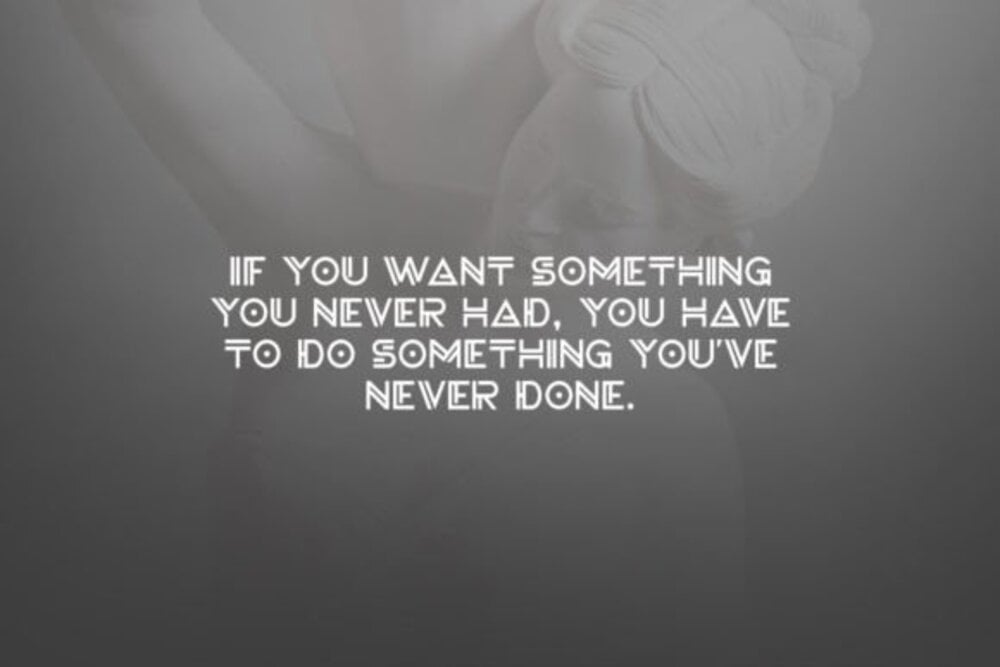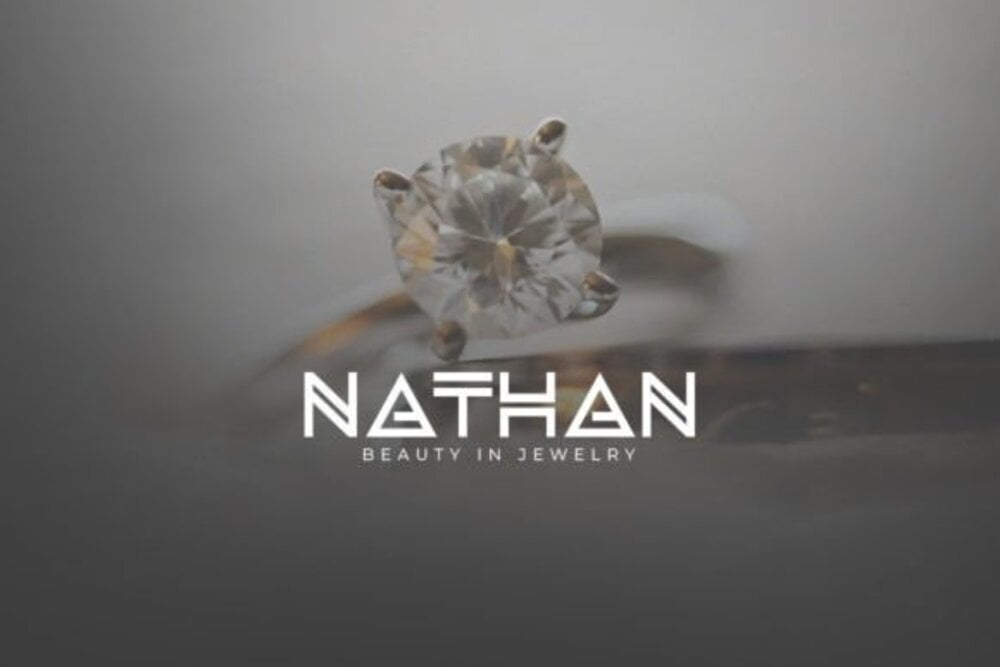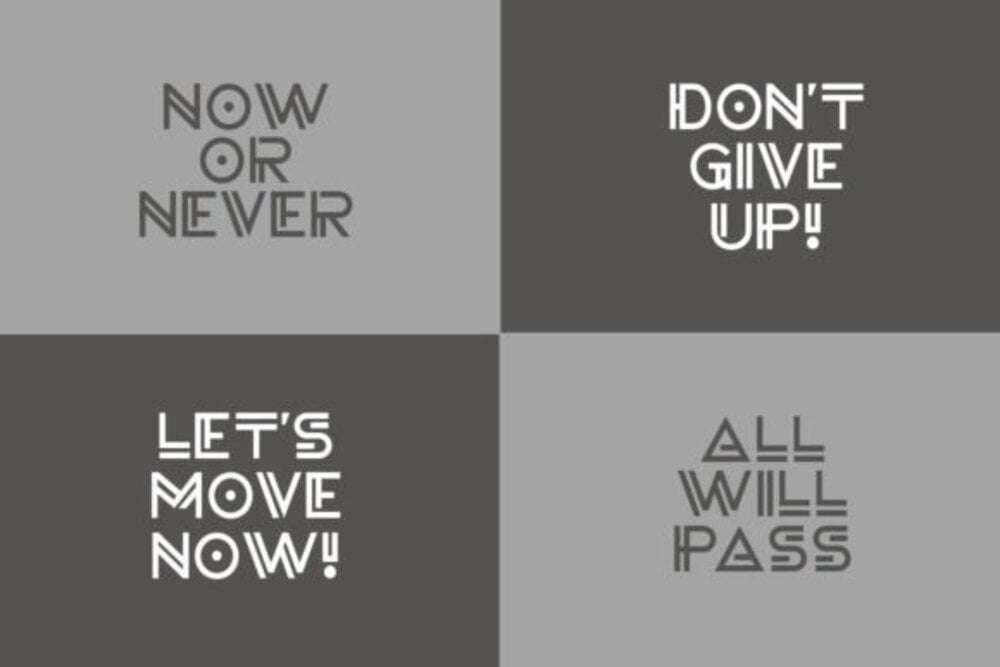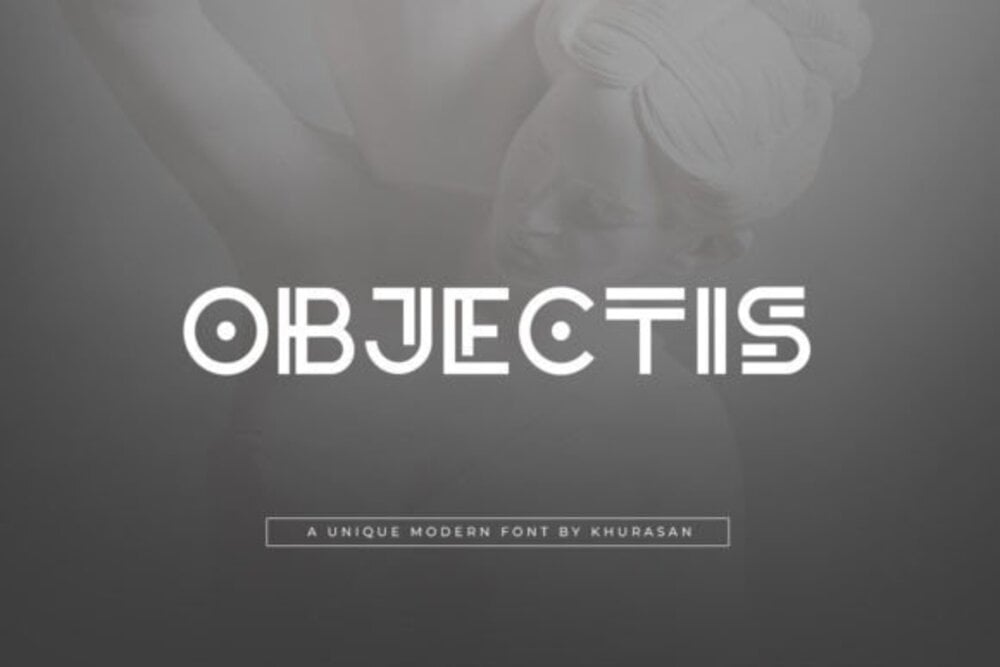
Objectis Font
Objectis is a clean and modern sans-serif font with a geometric structure. Its minimalist design and precise lines convey a sense of professionalism and clarity. Versatile and highly legible, Objectis is suitable for a wide range of applications, including branding, web design, editorial layouts, and corporate communications. It offers a timeless aesthetic that works well in both large and small sizes.